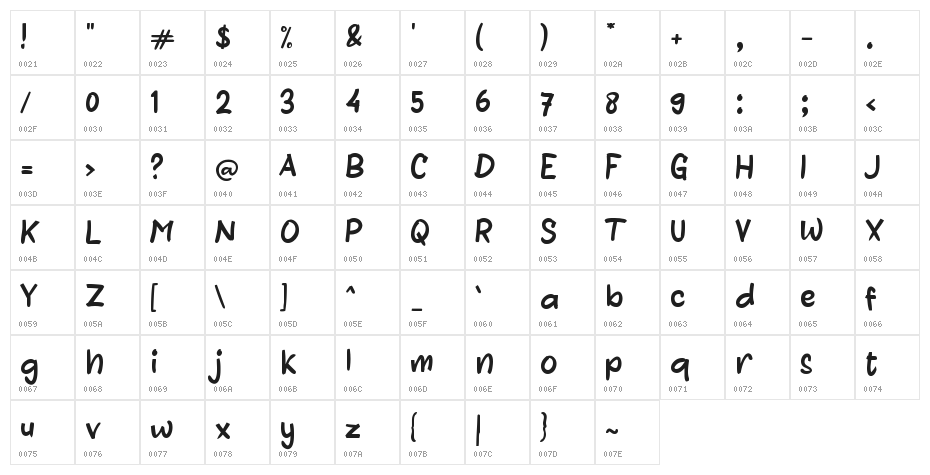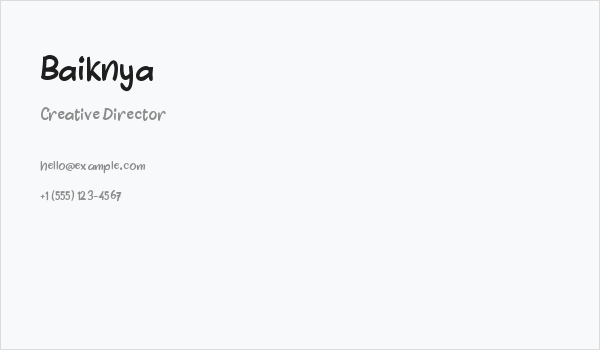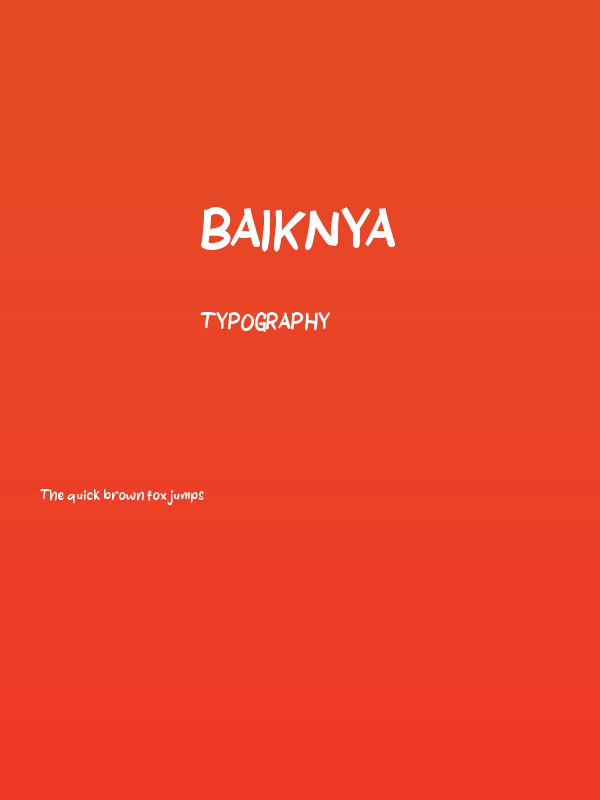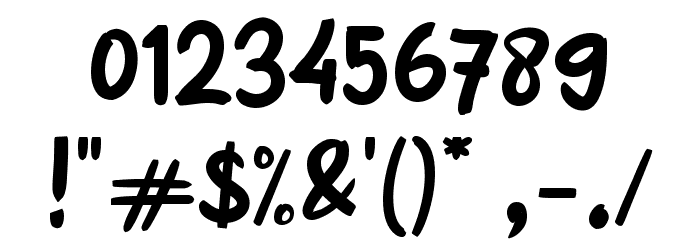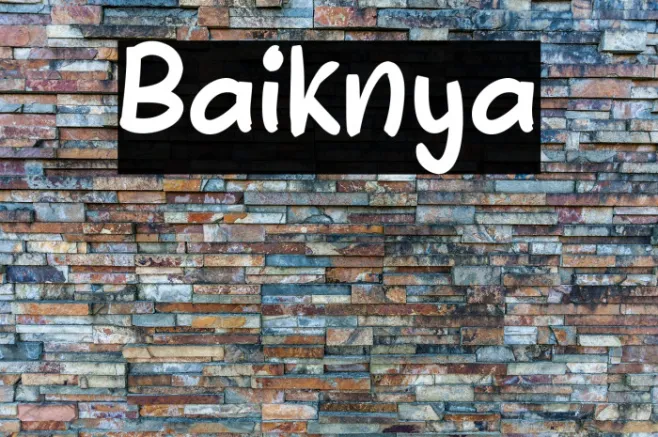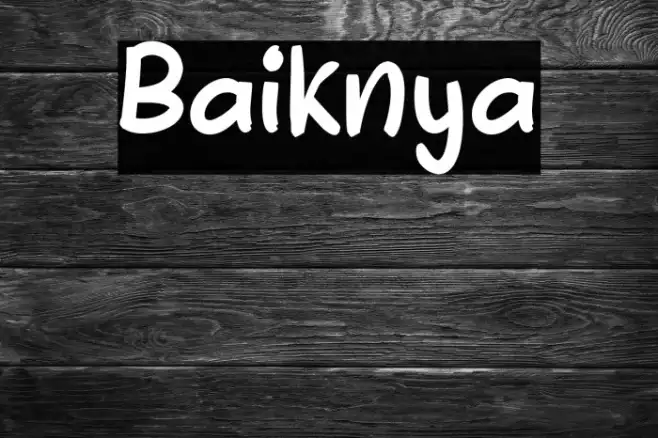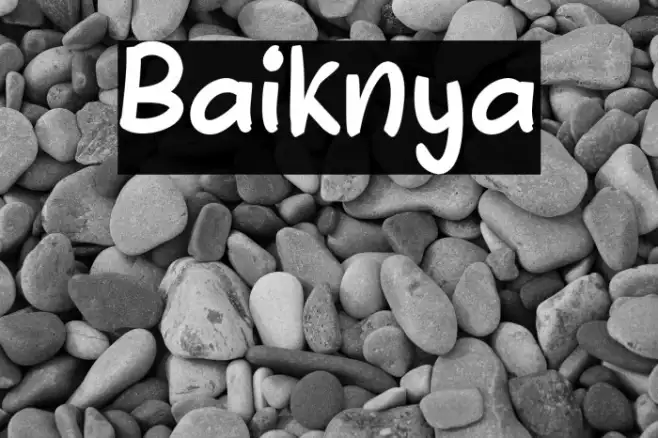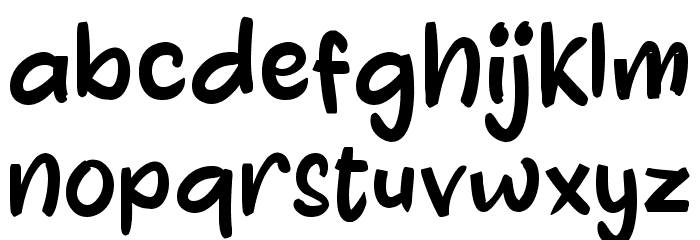
Baiknya Font
Baiknya Description
This font features a playful and casual handwritten style, characterized by its bold and rounded letterforms. The strokes are smooth and slightly irregular, giving it a friendly and approachable appearance. The uppercase and lowercase letters maintain a consistent style, with a slight slant that adds to its informal charm. The numerals and special characters are equally bold and rounded, ensuring readability and coherence across different uses. This font is ideal for projects that require a personal touch, such as invitations, greeting cards, or playful branding materials.
| Proposed Projects | Ideal for invitations, greeting cards, playful branding, and casual designs. |